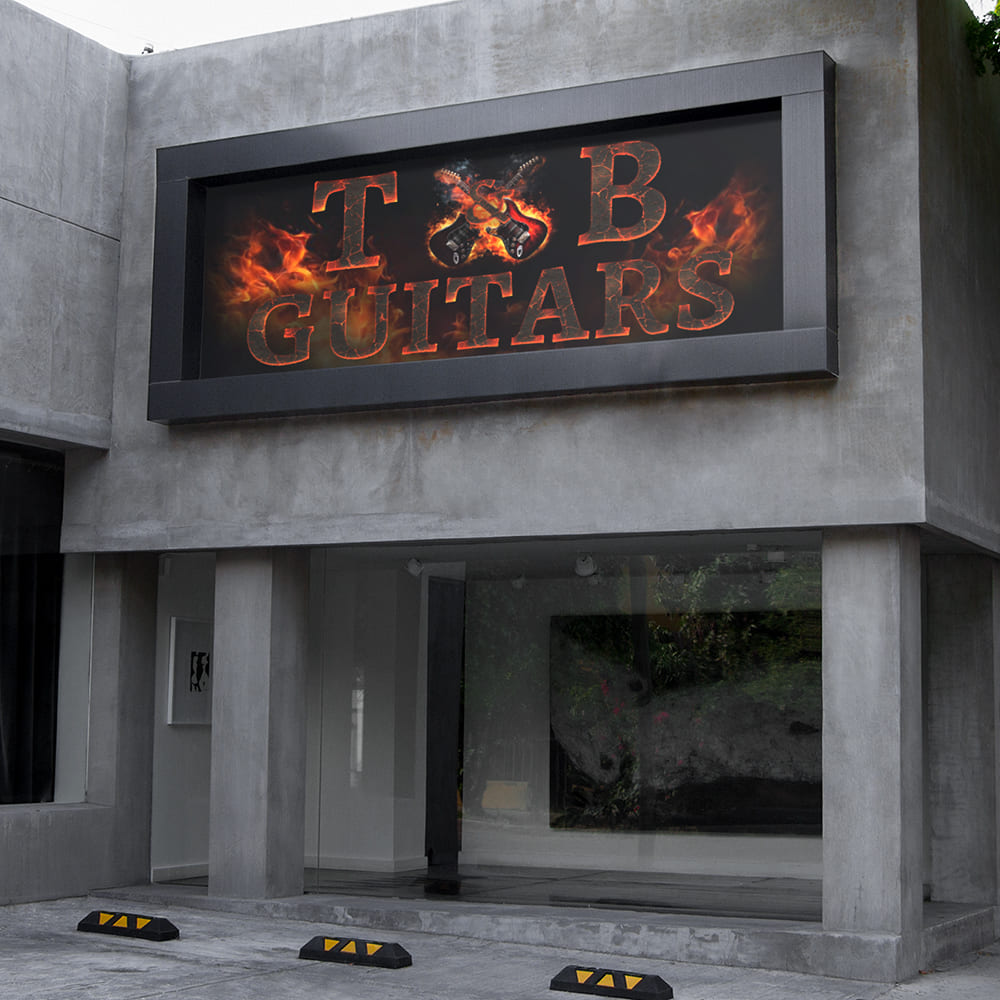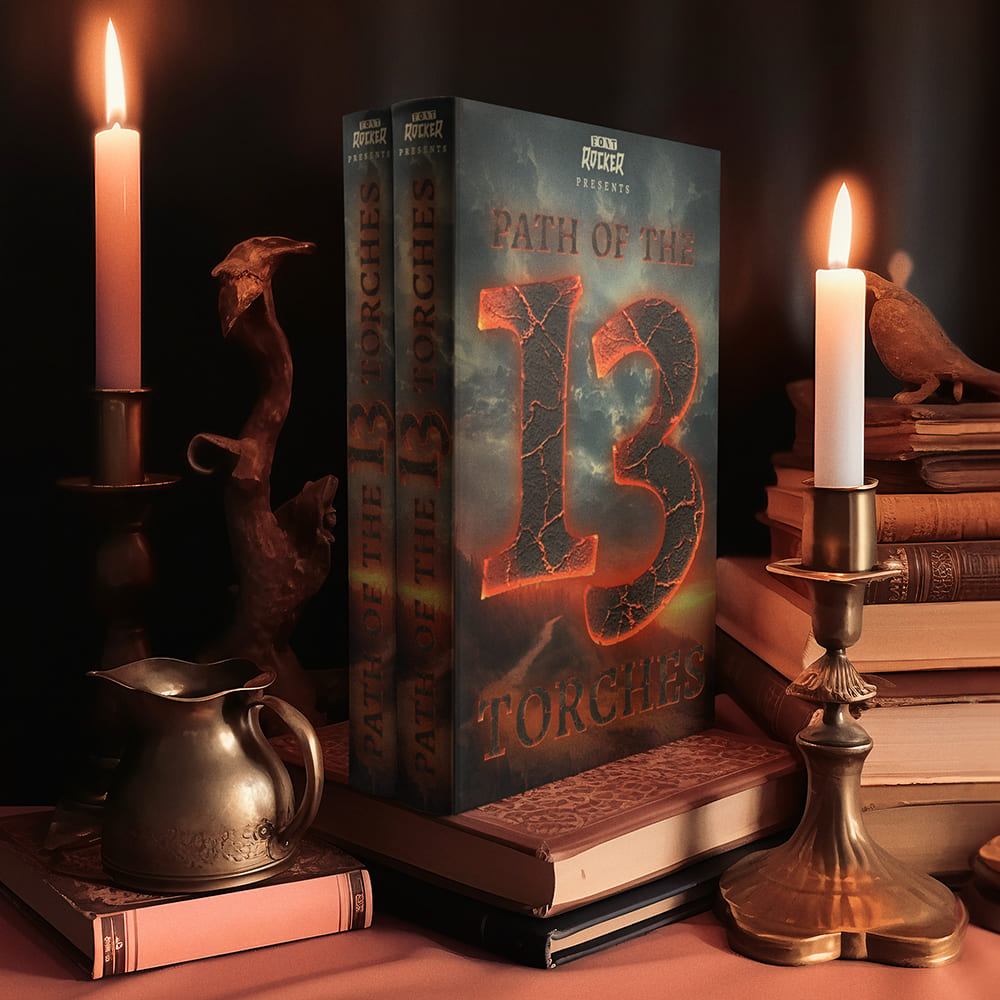
Sauron Font
Dark, Powerful, Unstoppable 🧙⚡🔮🌋
From the shadows of Mordor, a font rises—one that embodies power, darkness, and legend: the Sauron Font! Inspired by J.R.R. Tolkien’s epic world and Peter Jackson’s breathtaking film adaptation of The Lord of the Rings, this font delivers the raw essence of Middle-earth’s darkest forces straight into your design.
This is no ordinary typeface—this is a weapon of the dark realm. Each letter looks as if it were forged in the black fires of Barad-dûr, hammered by Orcs, and seared by the flames of Mount Doom itself.
Why Choose the Sauron Font?
🔹 Dark Elegance & Epic Power – A font that looks like it was torn from ancient scrolls or engraved into black steel.
🔹 Perfect for Fantasy, Gaming & Blockbuster Designs – Whether for movie posters, book covers, T-shirts, or legendary logos, this font brings the epic grandeur of Middle-earth into your project.
🔹 Hobbits fear it, Orcs worship it – The Sauron Font is raw, untamed, and filled with dark magic, just like the stories from Tolkien’s masterpiece.
One Font to Rule Them All!
With the Sauron Font, you unleash the dark power of Mordor in your design. A font that whispers, commands, and dominates—created for legendary projects that will never be forgotten.
🔹 Rise. Show your power. Choose the Sauron Font.